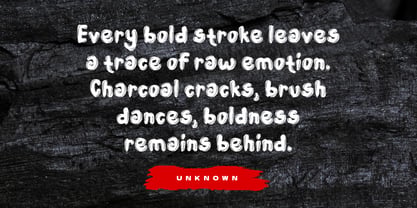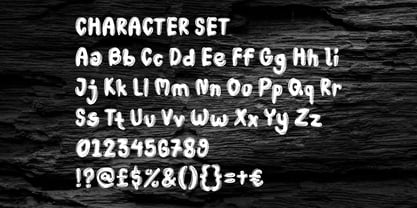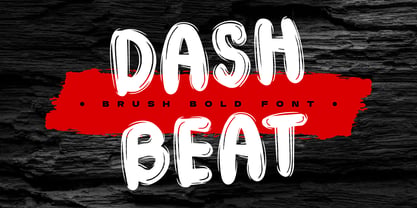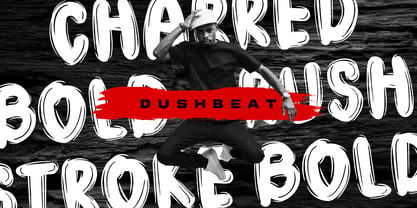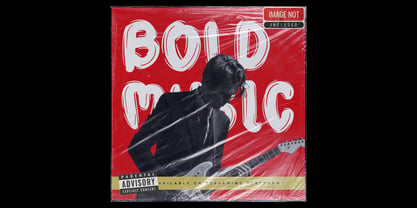
Dashbeat
by Shanaf
The Dashbeat Font Family was designed by Yesie Erma Yunita and published by Shanaf. Dashbeat contains 1 styles. More about this family
Dashbeat Brush Bold Font captures the raw energy of hand-painted letters with a street-smart attitude. Each letterform is thick, expressive, and full of personality, with sharp paint streaks and natural brush drag that mimic real-life bristle textures. The rounded but exaggerated edges make it both approachable and powerful, while subtle layering details give it depth—perfect for designs that need to stand out loud and proud. The font’s bold weight makes it readable even at a distance, whether it’s on a poster, music cover, or bold branding statement.
Its modern grunge feel pairs well with energetic visuals and urban themes. Dashbeat shines best in projects that need volume, rhythm, and raw visual impact. Use it for hip-hop event flyers, striking product packaging, streetwear branding, editorial headlines, or bold sticker sets. It’s a great pick for anyone designing covers, labels, or digital content where personality matters. Whether in all caps or lowercase, Dashbeat keeps your message loud and clear without losing its cool factor.
Designers: Yesie Erma Yunita
Foundry: Shanaf